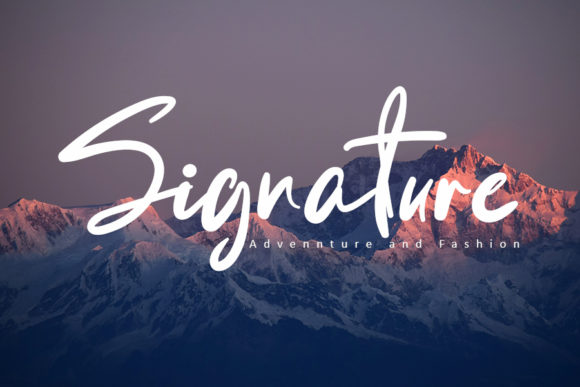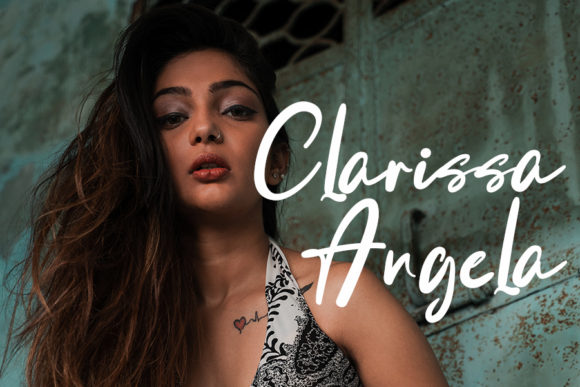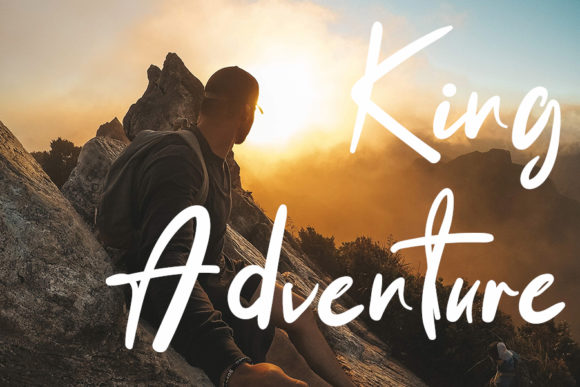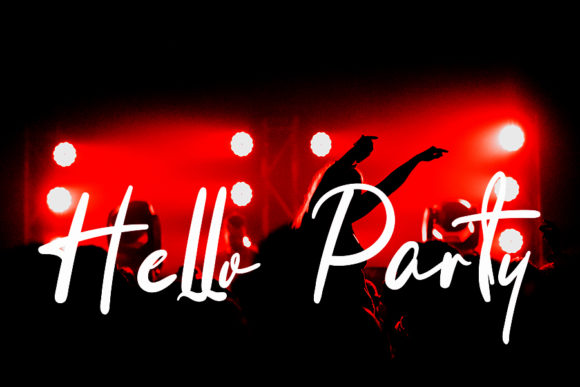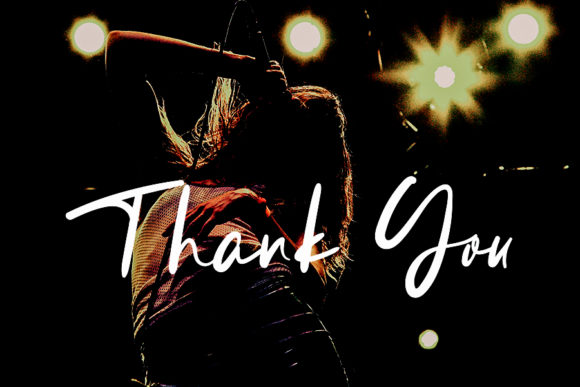
The Perfect Font for Your Creative Masterpiece
You know that moment when you’re brainstorming ideas for a project and the perfect font suddenly pops into your head? For many designers, it’s like a spark of inspiration that sets the entire creative process ablaze. That’s exactly what happened when we stumbled upon the enchanting Bonilla Amaliha Font.
This flowing and sweet signature font is an absolute gem, perfect for crafting gorgeous wedding invitations, beautiful stationery art, and eye-catching social media posts. With its incredibly versatile style, you can unleash your creativity and bring your vision to life. Whether you’re a seasoned designer or just starting out, Bonilla Amaliha Font is a valuable addition to your toolkit, offering a unique touch that sets your work apart from the rest.
Bonilla Amaliha Font Key Features
- Font Family: Bonilla Amaliha Font is a unique, elegant script font designed for various typography applications.
- Character Count: The font includes a wide range of characters, including uppercase and lowercase letters, numbers, and punctuation marks.
- Unique Characteristics: The font features intricate, hand-drawn letterforms with subtle flourishes, giving it a distinctive and artistic feel.
Review: Bonilla Amaliha Font
At first glance, I was drawn to the elegant and sophisticated design of the Bonilla Amaliha Font. It’s perfect for creating a high-end and luxurious feel in any project. ✨ The font’s unique blend of modern and classic elements makes it versatile and easy to use.
The Bonilla Amaliha Font has a wide range of applications, from headlines to body text. The font’s high x-height and open counters make it highly legible, even at smaller font sizes. ✨ Additionally, the font’s wide range of weights and styles allows for a high level of customization.
However, I do have a few concerns about the font’s limitations. ⚠️ The font may not be suitable for use in digital applications, as it can be quite pixelated and may lose some of its sophistication at smaller sizes. Additionally, the font’s lack of language support may limit its use in multilingual projects.
- High-end and luxurious design
- Unique blend of modern and classic elements
- Highly legible at small font sizes
- Wide range of weights and styles
- May not be suitable for digital applications
- Lack of language support
Tips for Getting the Most Out of Bonilla Amaliha Font
1. Use Bonilla Amaliha Font for titles, headings, and emphasis to create visual hierarchy.
2. Combine Bonilla Amaliha Font with other fonts to create a unique and visually appealing design.
3. Experiment with different font sizes, colors, and styles to create a cohesive look.
1. Branding and logos
2. Marketing materials (brochures, flyers, business cards)
3. Digital products (websites, e-books, presentations)
Compared to Bonilla Amaliha Font, Playfair Display has a more traditional and formal feel, with a stronger emphasis on elegance and sophistication. While Bonilla Amaliha Font has a unique, hand-painted feel, Playfair Display is more refined and polished.